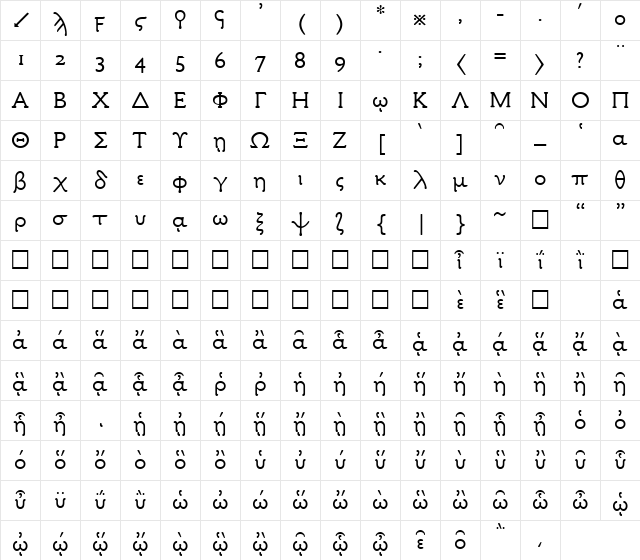
Milan Greek Normal Free Font
Milan Greek Normal
Milan Greek Family
Design Context for Milan Greek
Milan Greek is a composed and adaptable typeface that performs quietly and consistently across a wide range of design contexts.